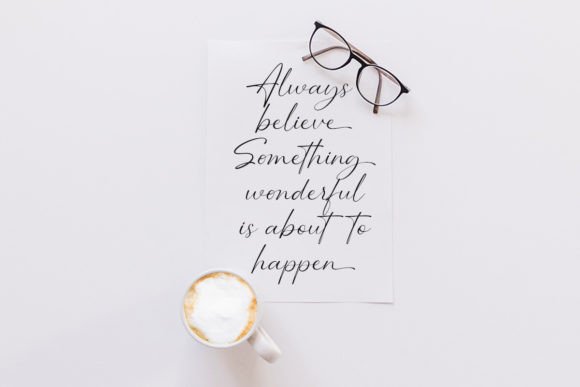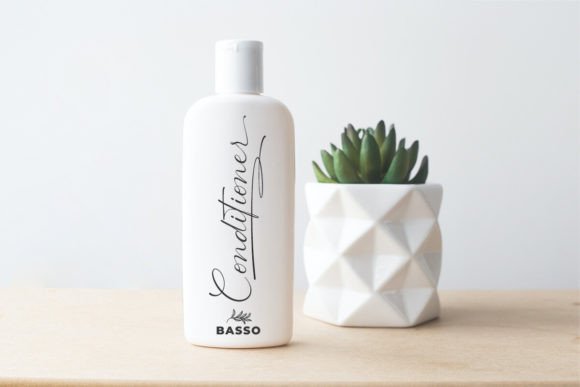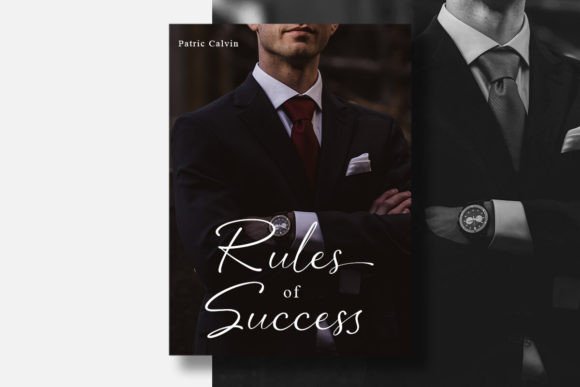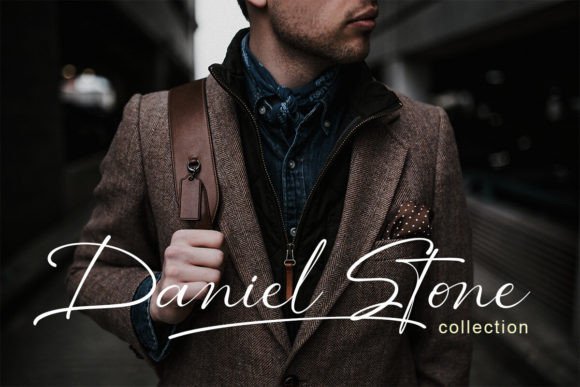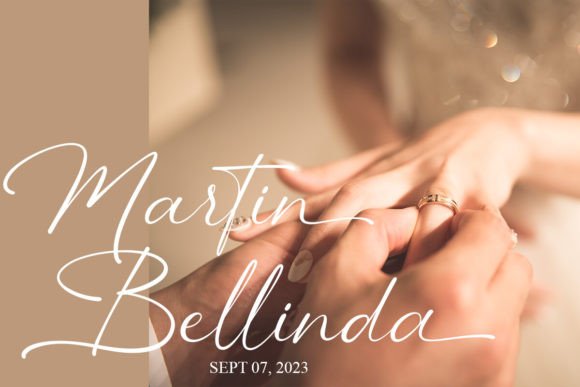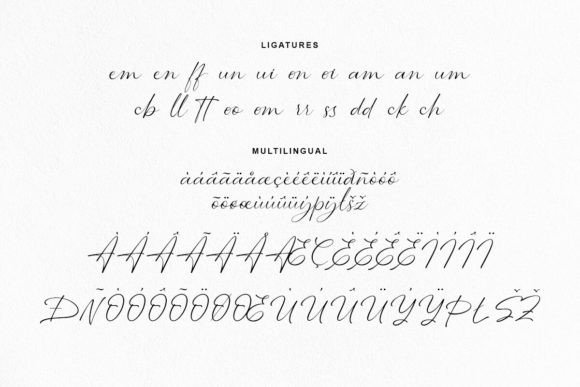
Introduction to Mentions Font
Imagine you’re brainstorming ideas for your next creative project, and suddenly, the perfect font pops into your mind. The smooth curves, elegant flair, and subtle nuances all come together to bring your vision to life. That’s exactly what happens when you fall in love with the Mentions Font – a flowing handwritten font that adds an extra layer of sophistication to any design.
Whether you’re a seasoned designer or a beginner looking for a reliable design resource, the Mentions Font is a valuable addition to your toolkit. With its high-quality, free download option, you can experiment with this beautiful font on a transparent background, exploring its endless possibilities without breaking the bank.
So, what makes the Mentions Font so special? Its timeless style and incredibly distinct character make it a standout choice for any creative project, from elegant invitations to modern branding. In this article, we’ll delve into the world of the Mentions Font and discover why it’s a must-have for designers who demand the best.
Mentions Font
- High-quality, professional font suitable for creative projects
- Transparent background option for flexible design
- Supports a wide range of languages and characters for international design
Honest Review: Mentions Font
As a designer, I’m always on the lookout for high-quality fonts to elevate my creative projects. Recently, I stumbled upon the Mentions Font, which has been generating quite a buzz in the design community.
- Transparent background: The font’s transparent background feature allows for seamless integration with various design elements, giving me more creative freedom.
- High-quality design: The Mentions Font boasts a sleek, modern design that’s perfect for a wide range of creative projects, from digital marketing materials to social media graphics.
While the Mentions Font is an excellent addition to any design resource, I did encounter a few limitations:
- Limited character set: The font only includes a limited character set, which might not be suitable for longer texts or complex designs.
- No bold or italic styles: Unfortunately, the Mentions Font doesn’t offer bold or italic styles, which can be a drawback for designers who require more versatility.
In conclusion, the Mentions Font is a solid addition to any design resource. While it has its limitations, its high-quality design, transparent background feature, and free download make it an excellent choice for designers working on creative projects. I’d definitely recommend giving it a try!
Mentions Font
The Mentions Font is a high-quality, free download design resource ideal for creative projects requiring a unique and stylish touch. With its transparent background, this font can be easily integrated into various design tools.
Tips for Getting the Most Out of Mentions Font
For optimal results, use Mentions Font in conjunction with a bold and contrasting background color to make your text stand out.
The Mentions Font is ideal for:
- Blog posts and articles
- Personal branding
Alternatives to Mentions Font
Great Vibes Font is a high-quality, handwritten script font perfect for creative projects that require a touch of elegance and sophistication. It’s ideal for designing invitations, quotes, and other graphics that need a unique, cursive style.
Compared to Mentions Font, Great Vibes Font offers a more refined and polished look, making it suitable for a wider range of design applications. While Mentions Font excels at conveying a sense of informality and casualness, Great Vibes Font is better suited for more formal and creative projects.
Yes, the Mentions Font has a transparent background, making it perfect for use on images or videos with complex backgrounds. This feature allows you to easily overlay the font on top of other design elements without worrying about visual clutter.